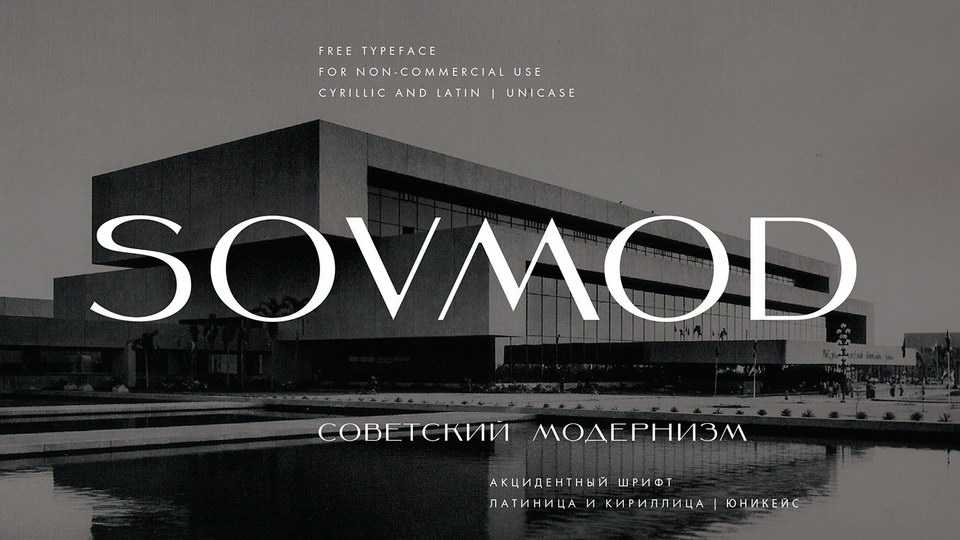
Download Sovmod font, a contrast display typeface inspired by Soviet Modernism with Latin and Cyrillic support. Sovmod font works best for headlines and short text blocks, logos and branding.
Designer: Stanislav Chiganov